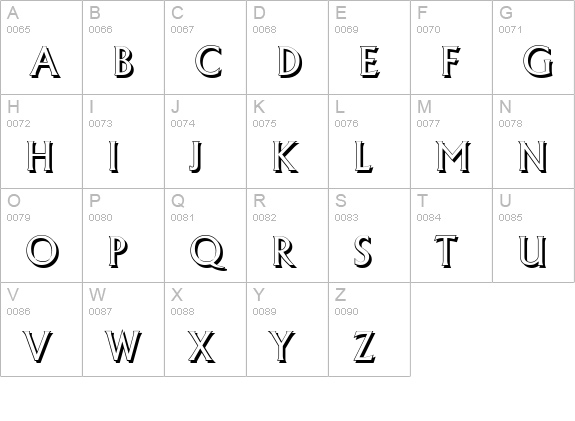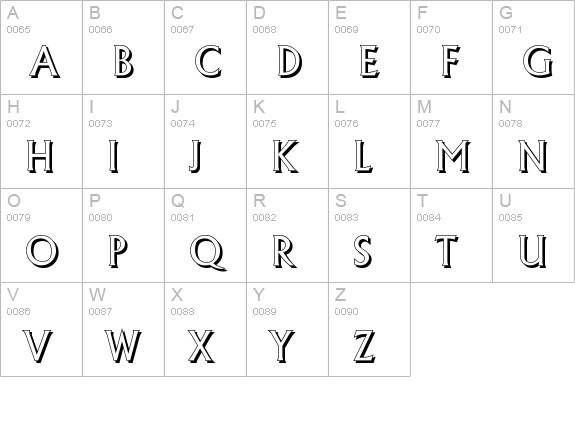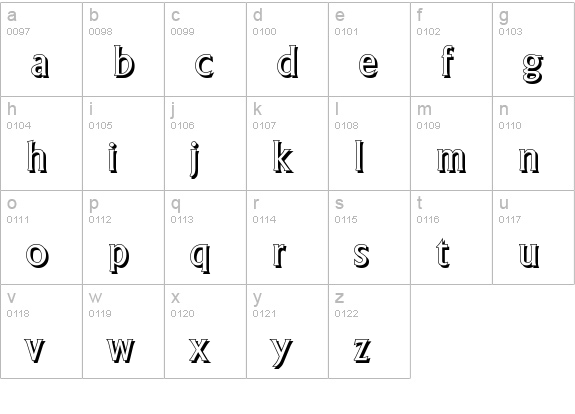
AdelonShadow-Regular is the standard, neutral variant in the AdelonShadow typeface family \xE2\x80\x94 well suited to general body text, paragraphs, and standard typographic work.
AdelonShadow-Regular is a stylish and versatile font that exudes elegance and sophistication. Its sleek lines and unique shadow effect make it perfect for a variety of design projects, from branding to packaging to invitations. This font strikes the perfect balance between modernity and timelessness, making it a go-to choice for designers looking to make a statement. The best part? AdelonShadow-Regular is available for free download at FontsMarket.com. This means you can easily access this stunning font without breaking the bank. Whether you're a seasoned designer or just starting out, AdelonShadow-Regular is a must-have addition to your font library. Download it today and elevate your designs with this exquisite typeface.